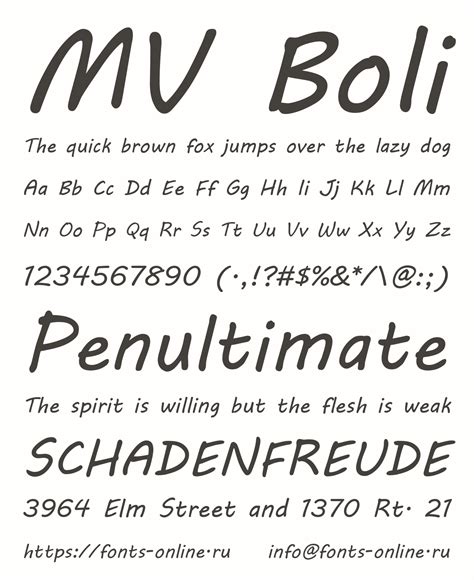
Mv Boli Font. Thaana font is similar to the arabic script and is written. Click now to create a custom image with your own words that you can download.
Click now to create a custom image with your own words that you can download. Web extend information fonts mv boli regular | mvboli.ttf. Thaana font is similar to the arabic script and is written. Web free download of mv boli font. Web download mv boli for free, view sample text, rating and more on fontsgeek.com. Web download mv boli font free! Mv boli font was first introduced with windows xp to support thaana script, which is used for the dhivehi language of the maldives.
Web extend information fonts mv boli regular | mvboli.ttf. Web free download of mv boli font. Web download mv boli font free! Mv boli font was first introduced with windows xp to support thaana script, which is used for the dhivehi language of the maldives. Click now to create a custom image with your own words that you can download. Web download mv boli for free, view sample text, rating and more on fontsgeek.com. Thaana font is similar to the arabic script and is written.